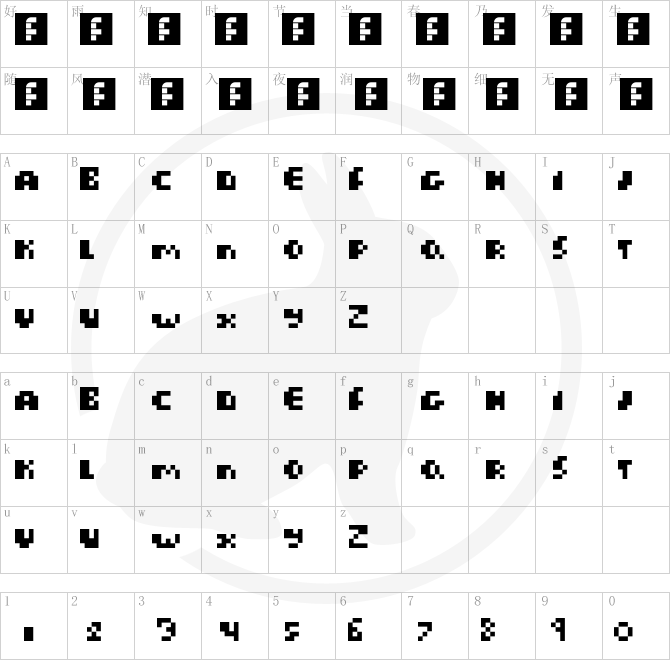
macaron-Regular.ttf is a very beautiful artistic font, macaron-Regular.ttf is widely used in the design and printing of various books and pictures,macaron-Regular.ttf has a strong visual impact,macaron-Regular.ttf is a commonly used font in newspapers, magazines and books, and is used in posters, e-commerce Poster design, store design, logo design, font design and other fields.macaron-Regular.